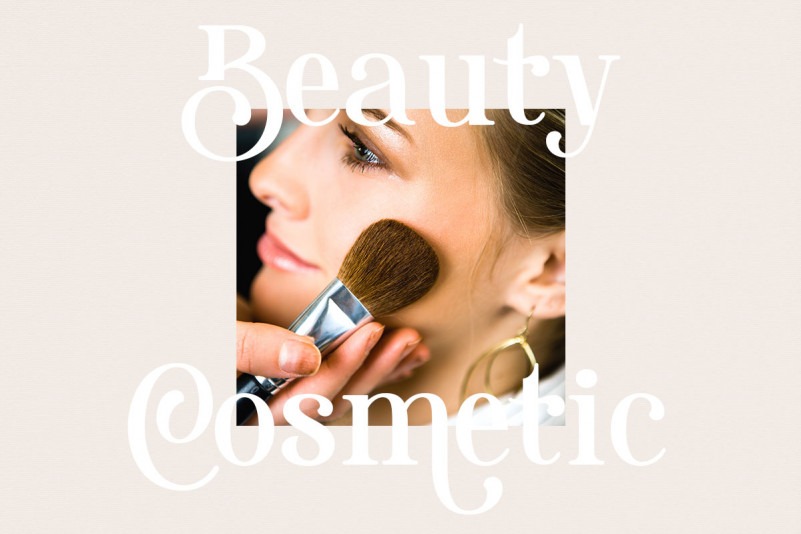
Ronald Tumb Font
Ronald Tumb Serif Font
It’s a modern serif with vintage charm, fashionable appearance with a touch of retro. This font is perfect for any modern project including branding design, logos, invitations, wedding decor, website design, instagram, business cards, and more! Add it to your most creative ideas, and notice how it makes them come alive!